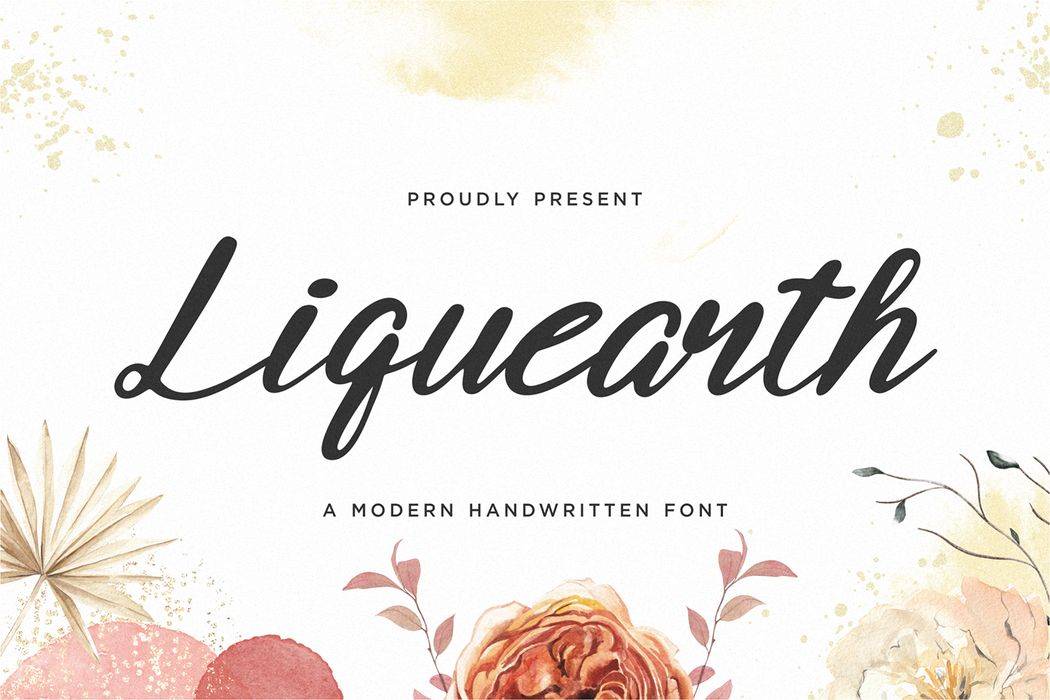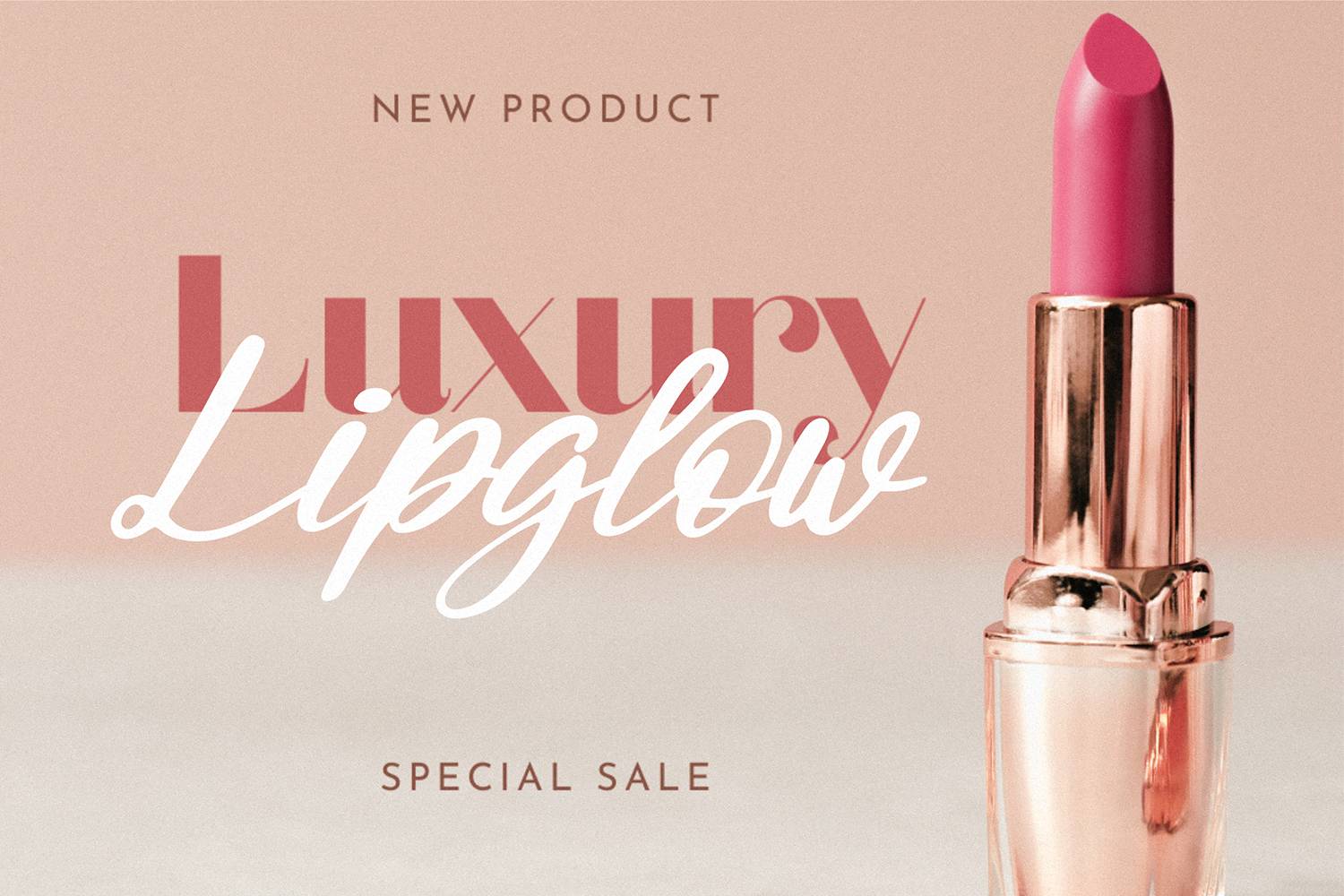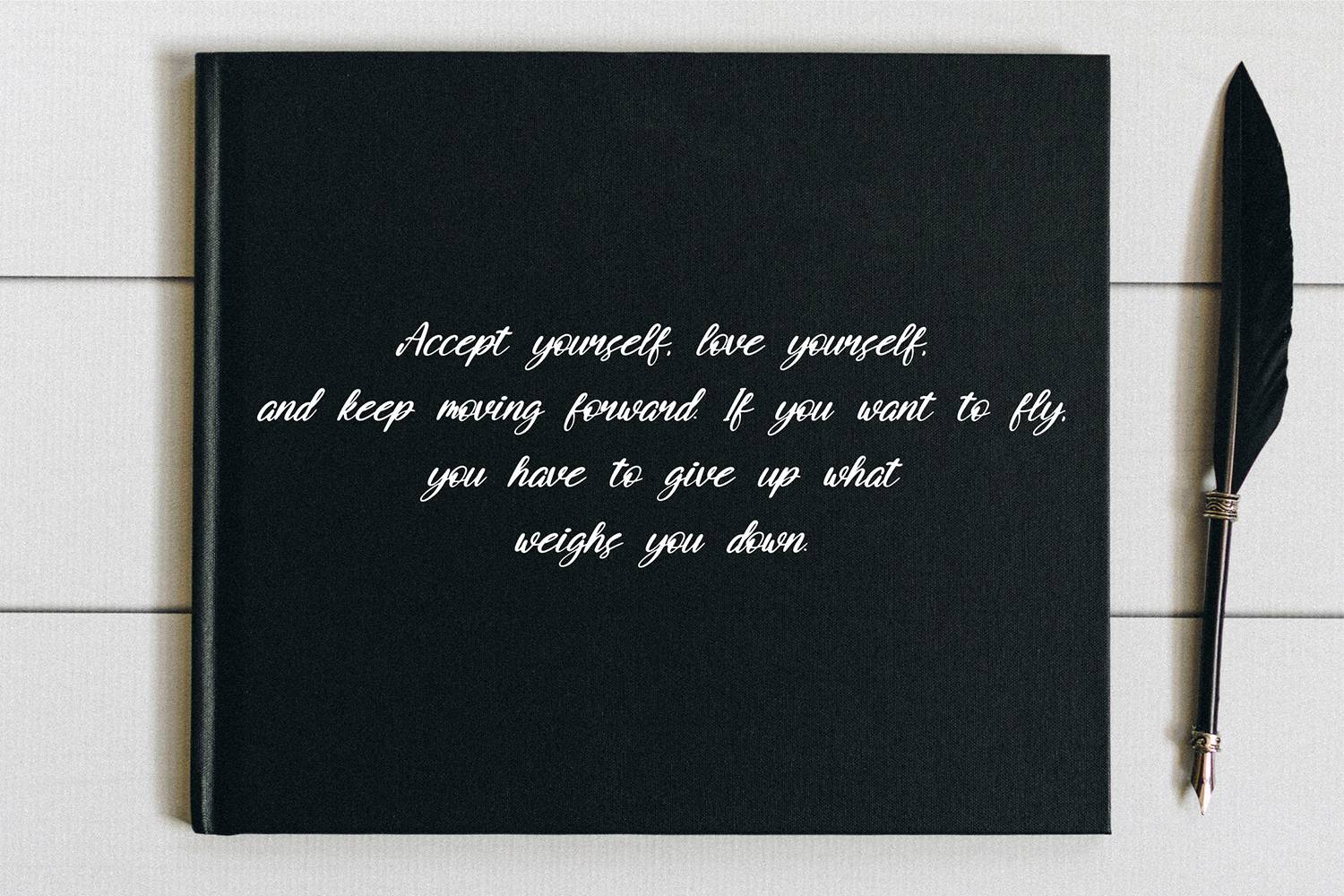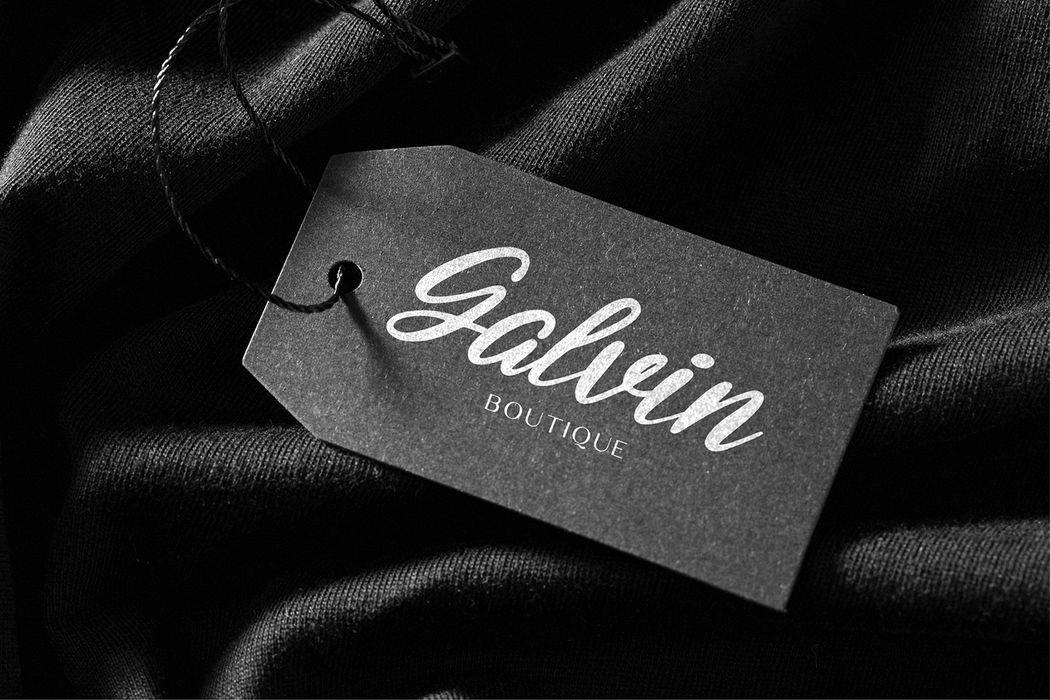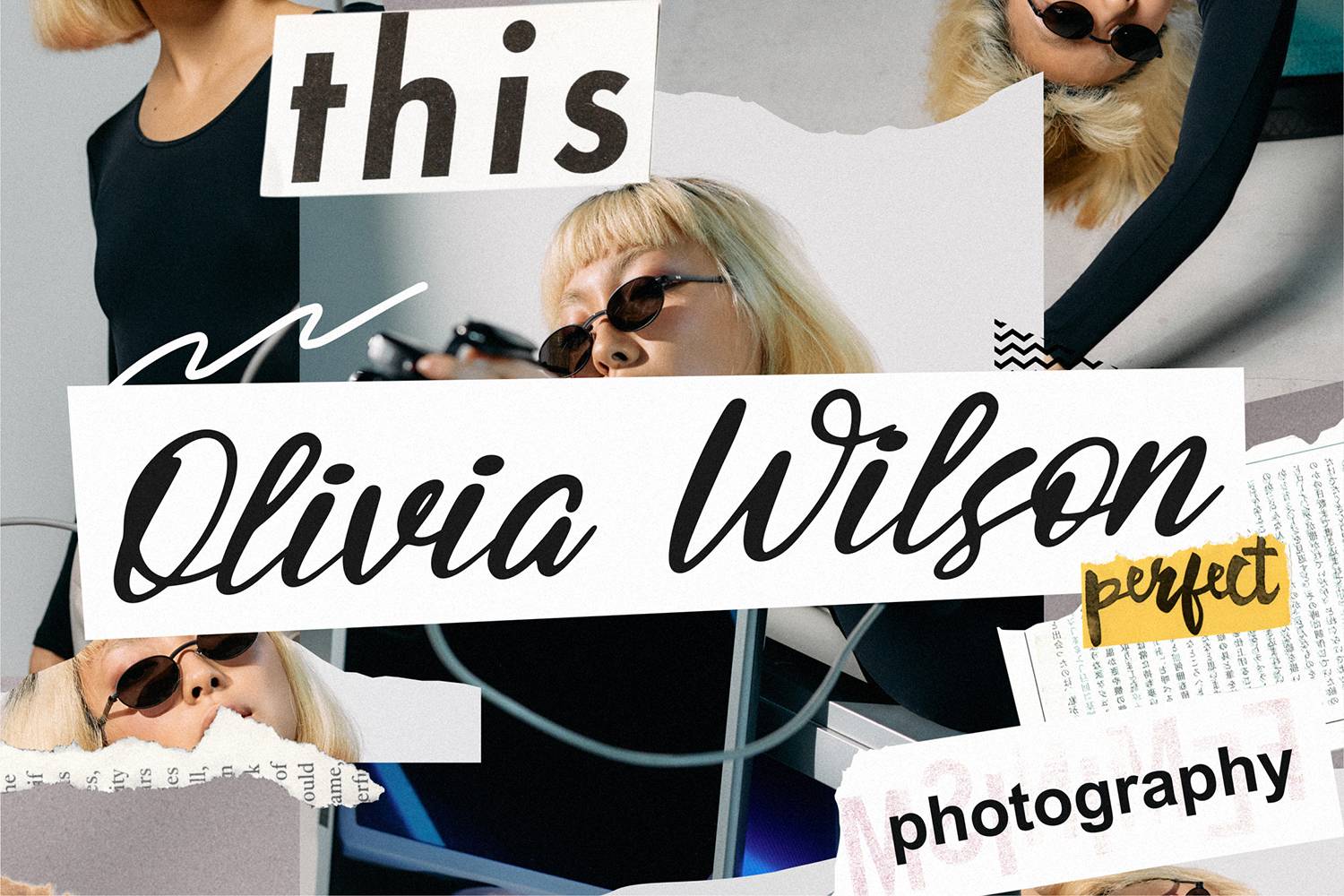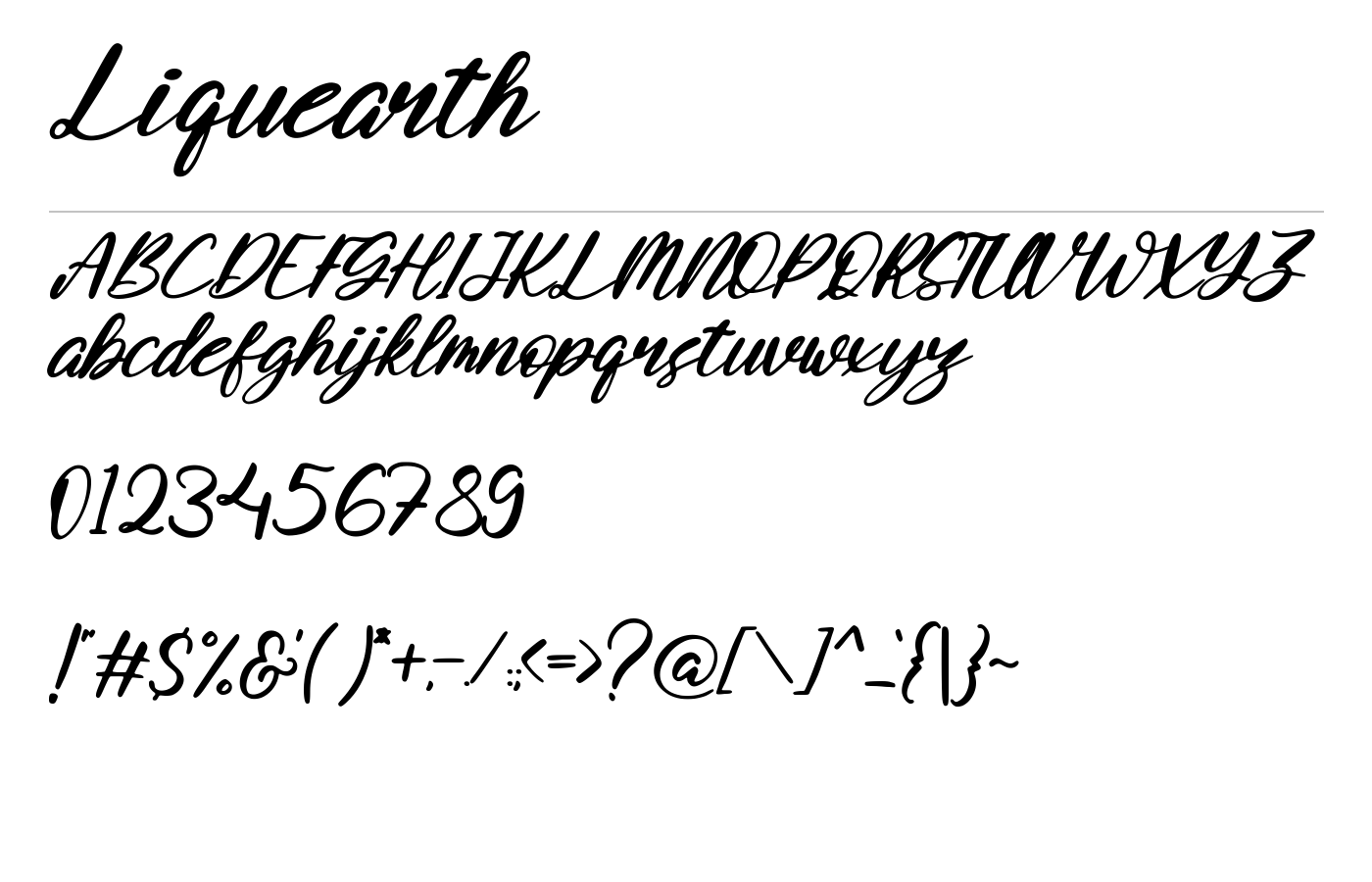
Liquearth is an elegant, flowing script font with a smooth, handwritten feel that combines both sophistication and modern charm. Its lively, connected strokes and moderate contrast make it ideal for inviting, creative projects such as logos, invitations, or branding that seeks a personal yet polished touch. This font works beautifully where a stylish, friendly, and dynamic impression is desired, especially in design contexts that benefit from a graceful, calligraphic flair.
Liquearth Font
About Liquearth Font